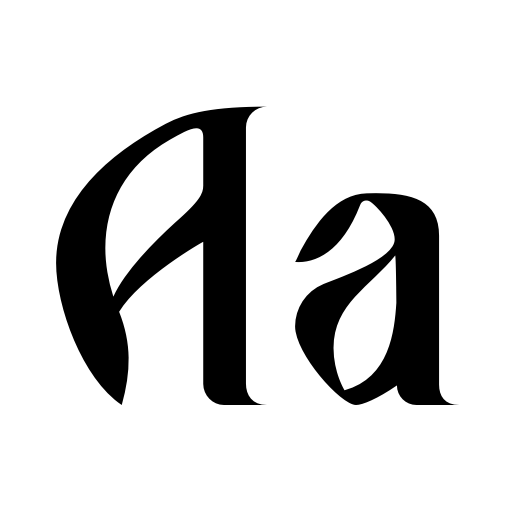
Avalen Rekas is a bold, blackletter-style serif font with a dramatic, high-contrast design featuring sharp, angular strokes and ornate flourishes. Its condensed letterforms and decorative details give it a vintage, gothic feel, making it perfect for creating strong, expressive headlines, logos, or branding that demand a sense of historic elegance with a modern edge. This font works especially well for fashion, tattoo art, or editorial projects that want to evoke a bold, mysterious atmosphere.
Avalen Rekas Font
About Avalen Rekas Font